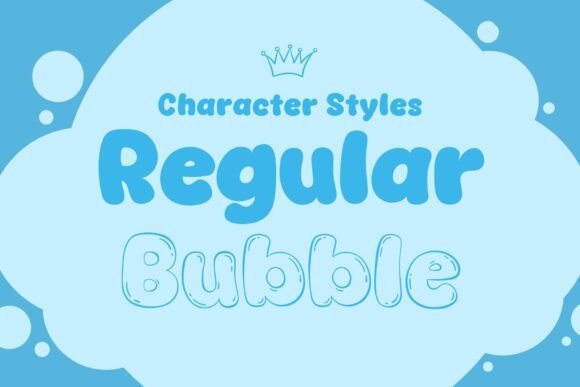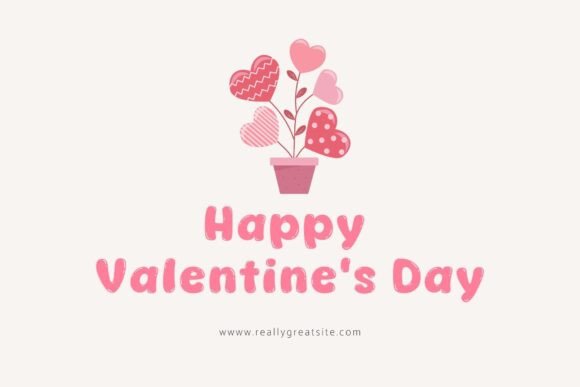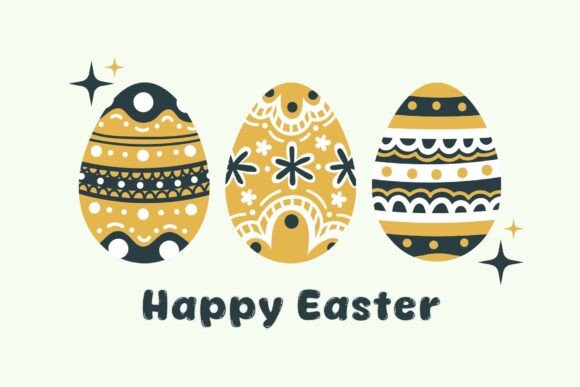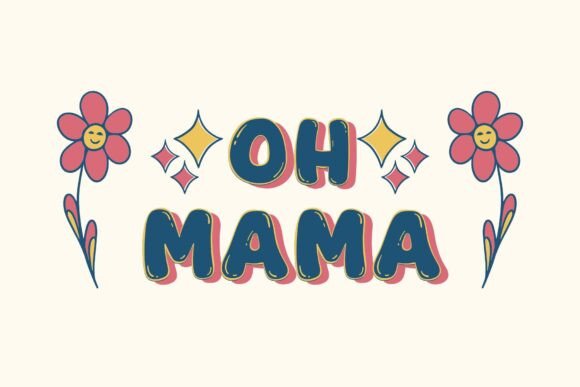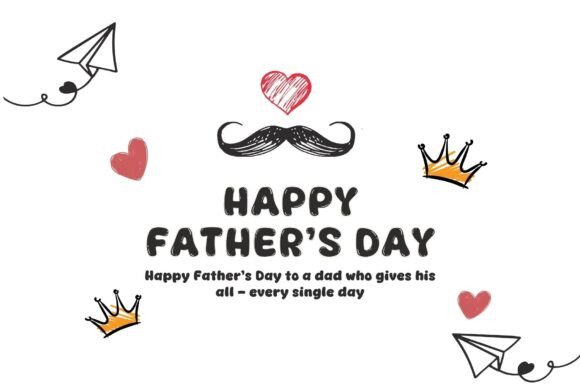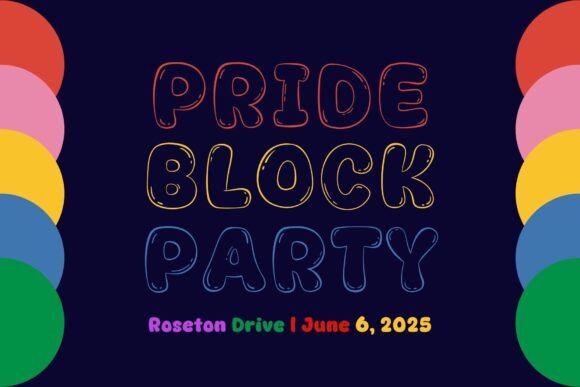
Introduction to Fox Ducky Font
Fox Ducky is a cheerful and charming font duo that brings a burst of personality to your designs.
Ideal for greeting cards, childrenโs books, posters, party invitations, and branding that needs a fun, friendly vibe With both Regular and Bubble styles, Fox Ducky gives you creative flexibility while keeping things super cute and approachable.
Key Features of Fox Ducky Font
Why Choose Fox Ducky Font?